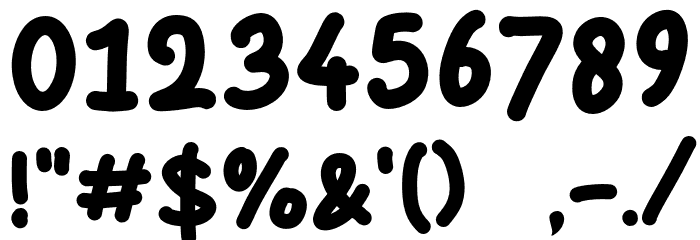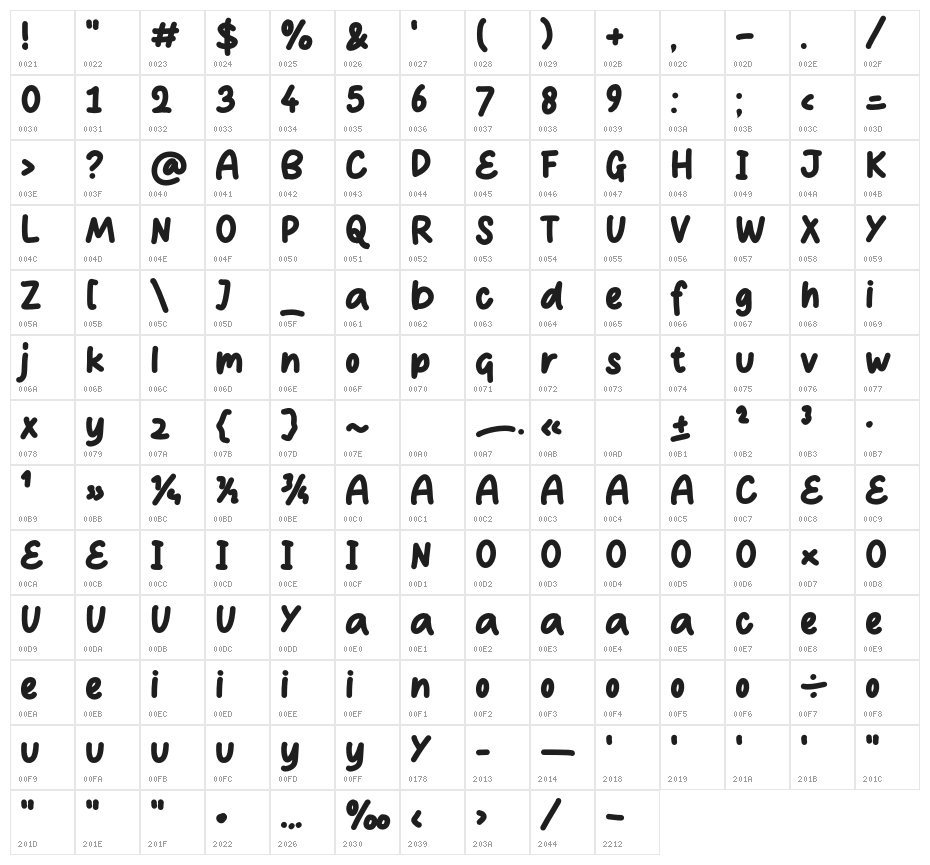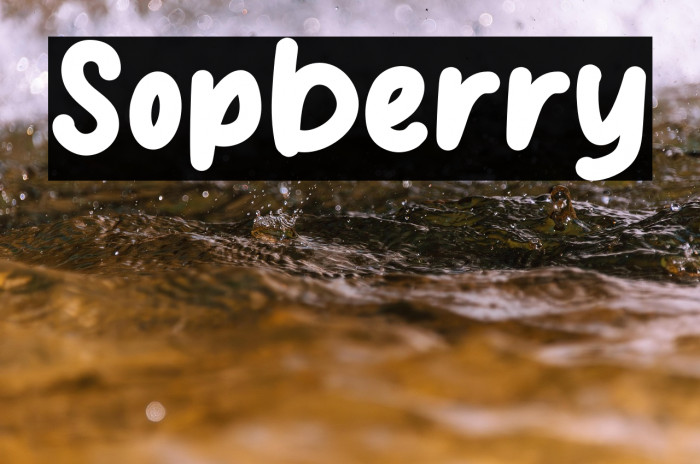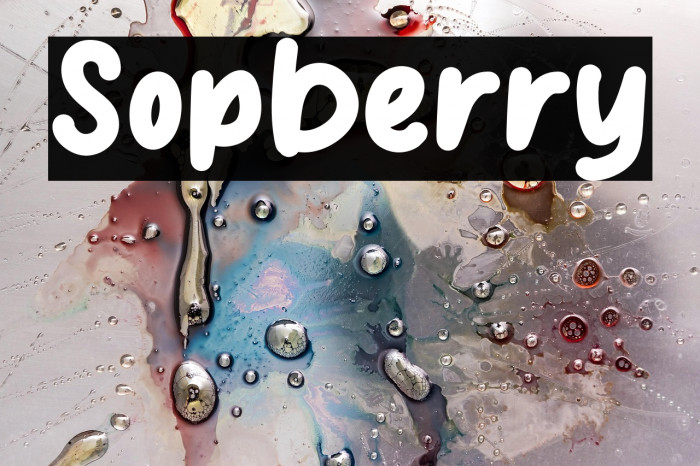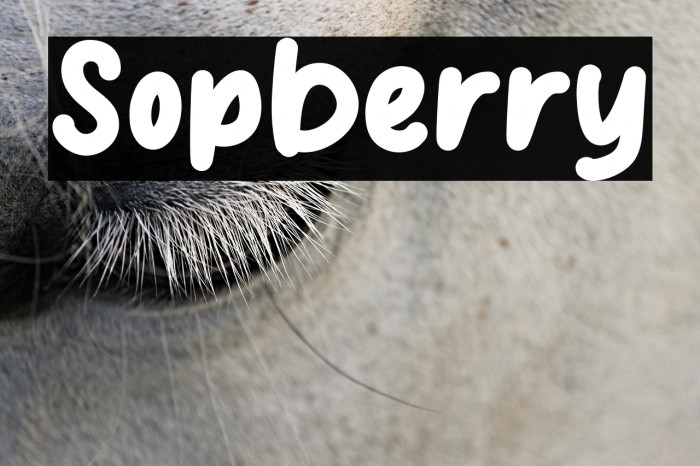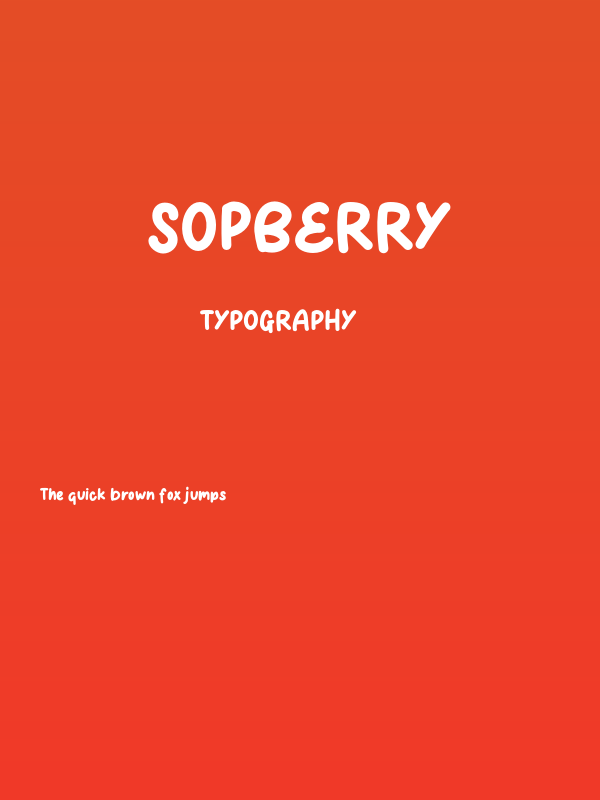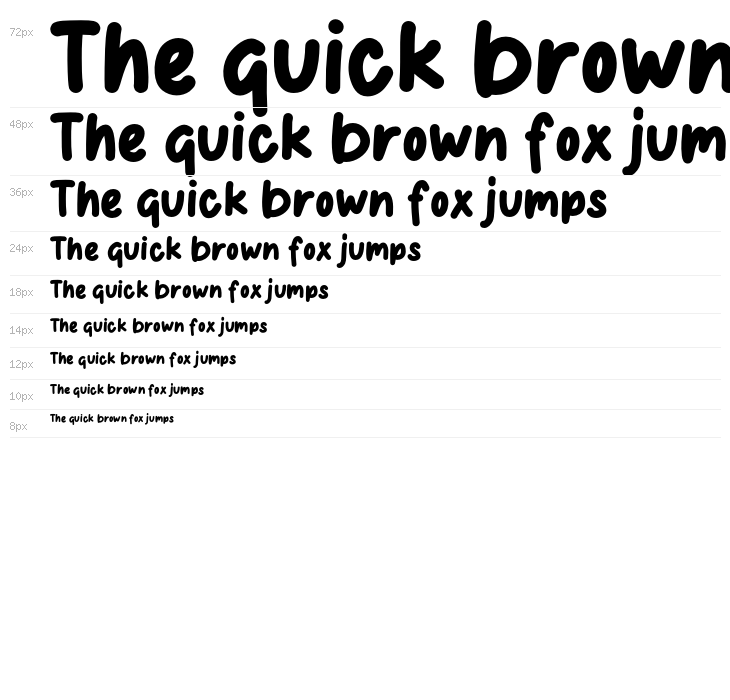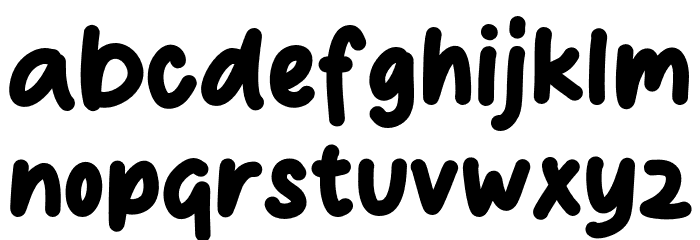
Sopberry Font
Sopberry Description
This playful and bold font features rounded, thick strokes that give it a friendly and approachable appearance. The characters are slightly irregular, adding a hand-drawn feel that enhances its casual and informal style. The uppercase and lowercase letters maintain a consistent weight, providing a cohesive look across the alphabet. The numbers and special characters follow the same design principles, ensuring uniformity throughout. Its boldness makes it highly legible, even at smaller sizes, while the rounded edges soften its overall impact, making it suitable for a variety of creative applications.
| Proposed Projects | Ideal for children's books, playful branding, casual invitations, and social media graphics. |